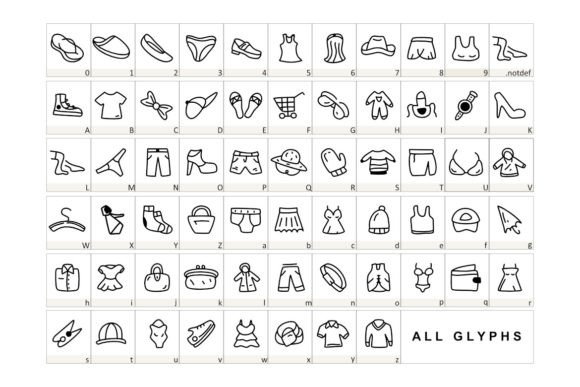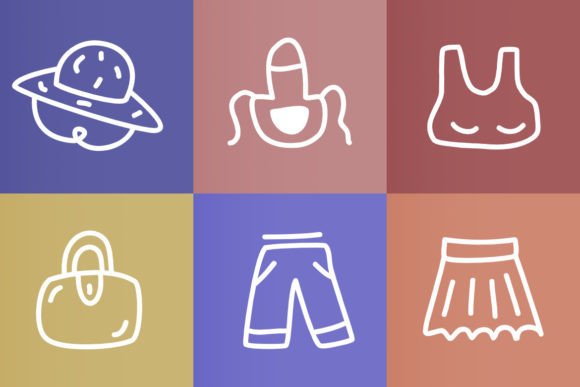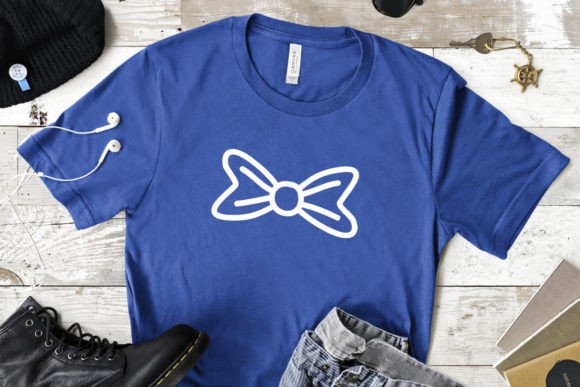
Discover the Versatility of Clothing Font: Elevate Your Designs with this Adorable Dingbats Font
Are you a designer, crafter, or DIY enthusiast looking for a unique and versatile font to elevate your projects? Look no further than Clothing Font, a delightful dingbats font that’s perfect for a wide range of applications. From stickers and posters to t-shirts, cards, and apparel graphics, this font is sure to become a favorite in your creative arsenal.
What is Clothing Font?
Clothing Font is a carefully crafted dingbats font that features an assortment of clothing-related icons, symbols, and illustrations. The font is designed to be highly legible and versatile, making it suitable for use in various design projects. Whether you’re creating fun and playful designs or more sophisticated and elegant ones, Clothing Font is the perfect choice.
Key Features of Clothing Font
- Cute and colorful illustrations: Clothing Font boasts an extensive collection of adorable illustrations, including clothing items, accessories, and other fashion-related icons.
- Highly legible: The font is designed to be easy to read, even at small sizes, making it perfect for use in a variety of applications.
- Versatile: Clothing Font can be used for a wide range of projects, from stickers and posters to t-shirts, cards, and apparel graphics.
Ideas for Using Clothing Font
Clothing Font is perfect for a variety of design projects, including:
- Stickers and labels: Use Clothing Font to create fun and colorful stickers and labels for your products, packaging, or marketing materials.
- Posters and flyers: Create eye-catching posters and flyers for fashion events, sales, or promotions using Clothing Font.
- T-shirts and apparel: Design unique and stylish t-shirts, hoodies, and other apparel items using Clothing Font.
- Cards and invitations: Add a personal touch to your cards and invitations with Clothing Font’s adorable illustrations.
- Apparel graphics: Use Clothing Font to create custom graphics for your clothing brand, including logos, icons, and other visual elements.
Tips for Getting the Most Out of Clothing Font
To get the most out of Clothing Font, here are a few tips to keep in mind:
- Experiment with different colors and combinations: Clothing Font’s illustrations look great in a variety of colors and combinations, so don’t be afraid to get creative!
- Mix and match with other fonts: Clothing Font pairs well with a range of other fonts, so try combining it with your favorite fonts for unique and interesting effects.
- Use it in combination with other design elements: Clothing Font’s illustrations can be used in combination with other design elements, such as shapes, textures, and patterns, to create visually interesting designs.